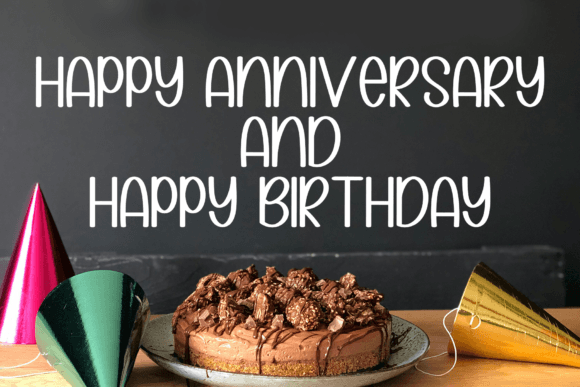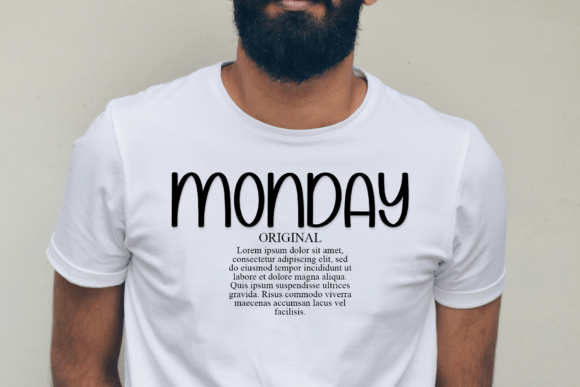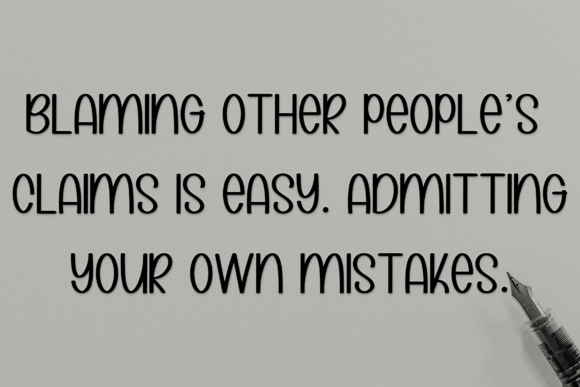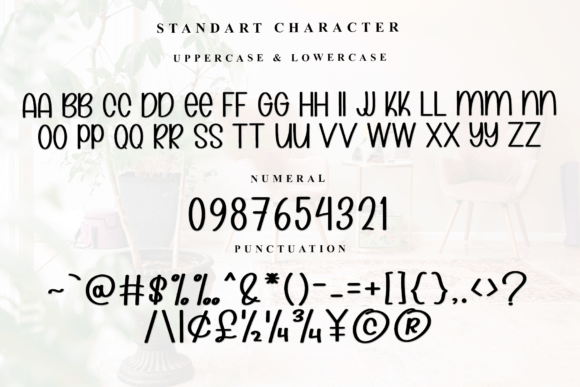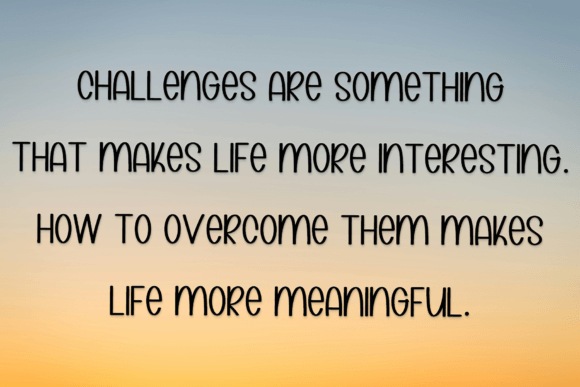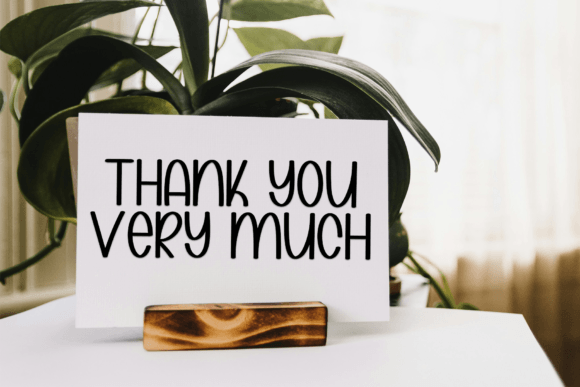
Introduction to Simple Family Font
Simple Family is a stylish display font with a contemporary atmosphere and impeccable form, inspired by a timeless classic calligraphy.
Balanced and varied, this font was designed to enhance the beauty of your projects This font is PUA encoded which means you can access all of the amazing glyphs and ligatures with ease.
Key Features of Simple Family Font